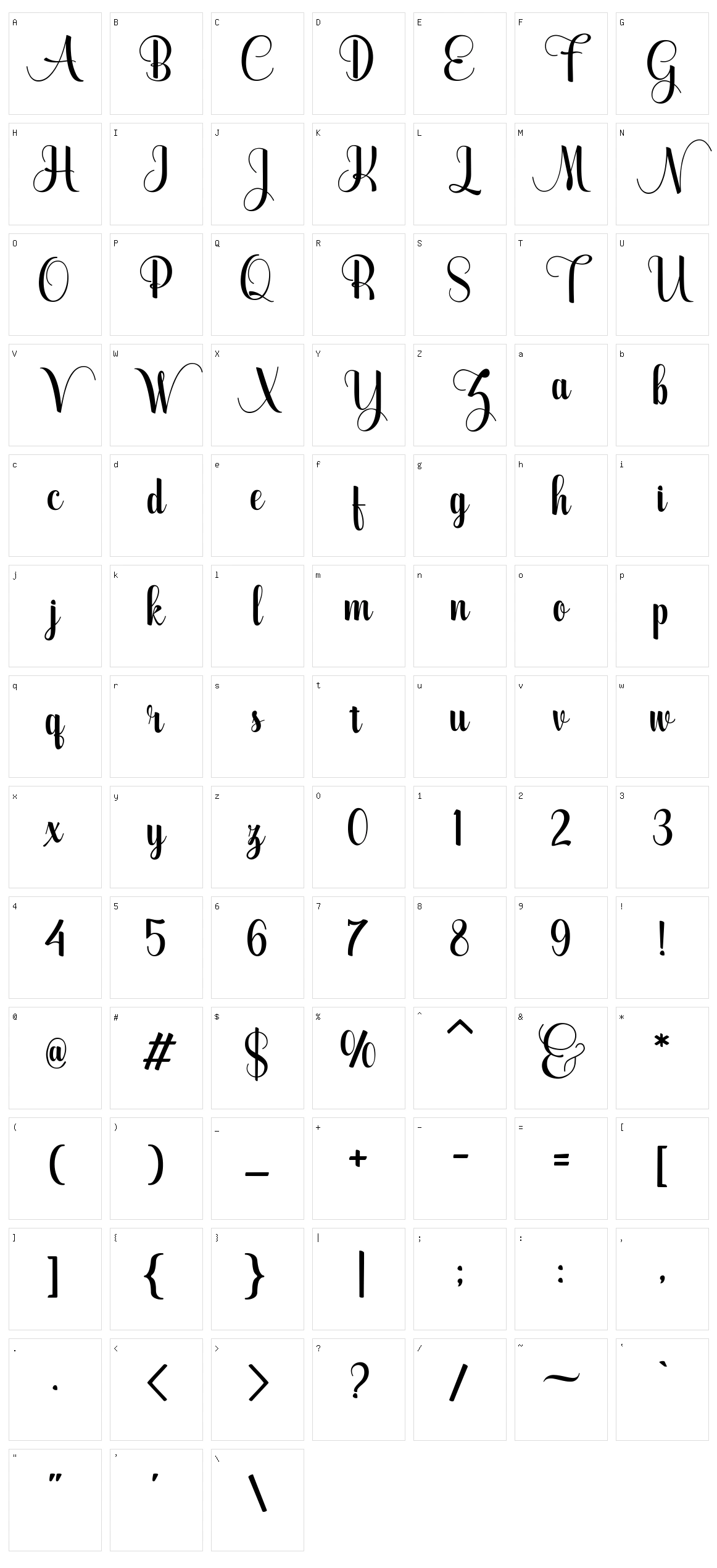
The free font Wolf Bane Pro is carefully designed by groenstudio, showcasing a thoughtful balance of creativity and usability and falls under the Script font style. When you download the ZIP file, it contains only 51.99 KB of font files, making it lightweight and quick to download. Please review the license details below to understand permitted usage and distribution rights. If license information is not available, we recommend using this font for personal projects only or contacting the author directly for commercial usage permissions.